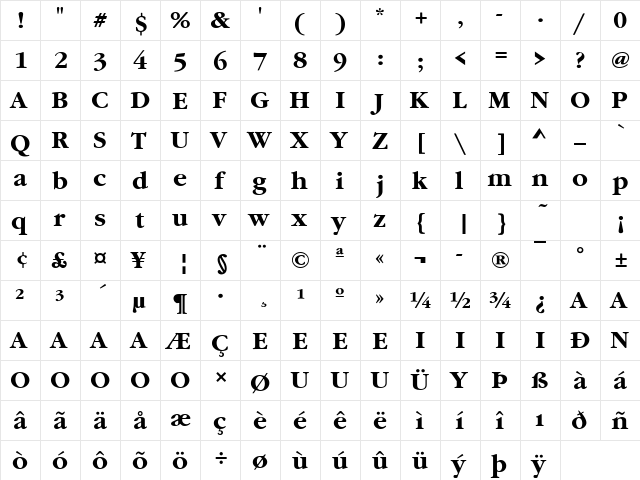
Garamond ITC T Bold
Design Context for Garamond ITC T Typeface
Garamond ITC T offers clean, dependable letterforms without strong stylistic allegiance, making it a practical choice for designers who need flexibility. The heavy weight commands attention and anchors typographic hierarchies.